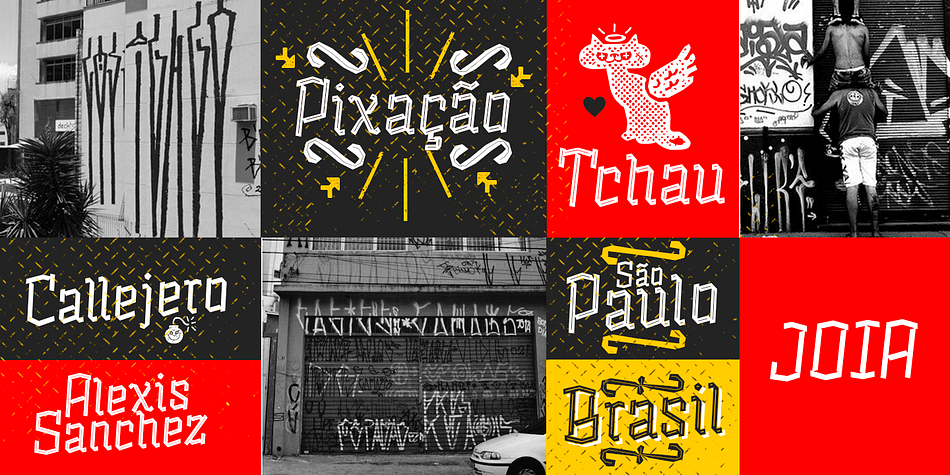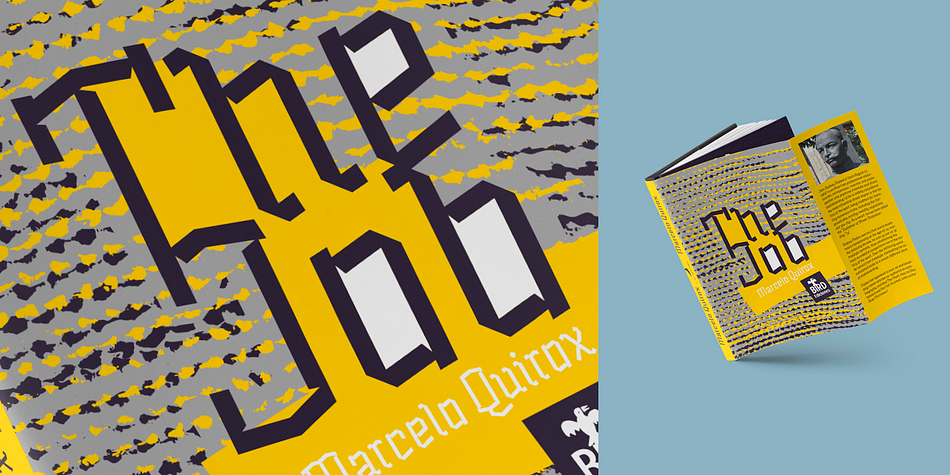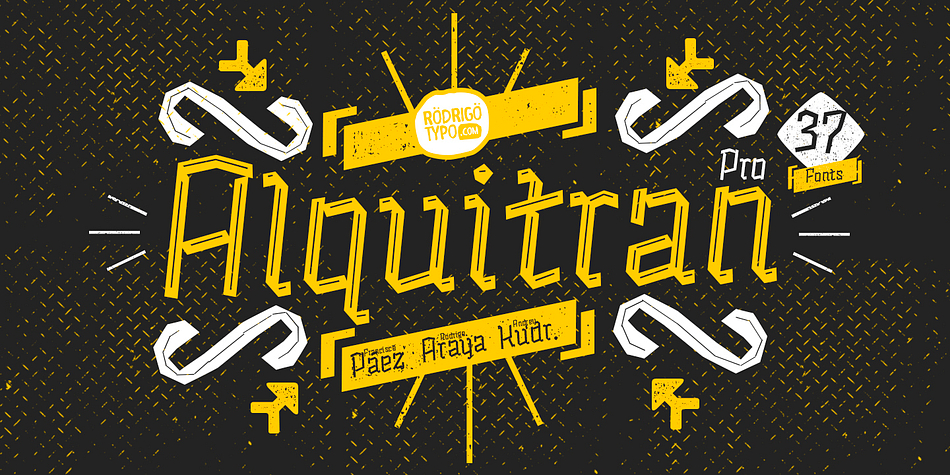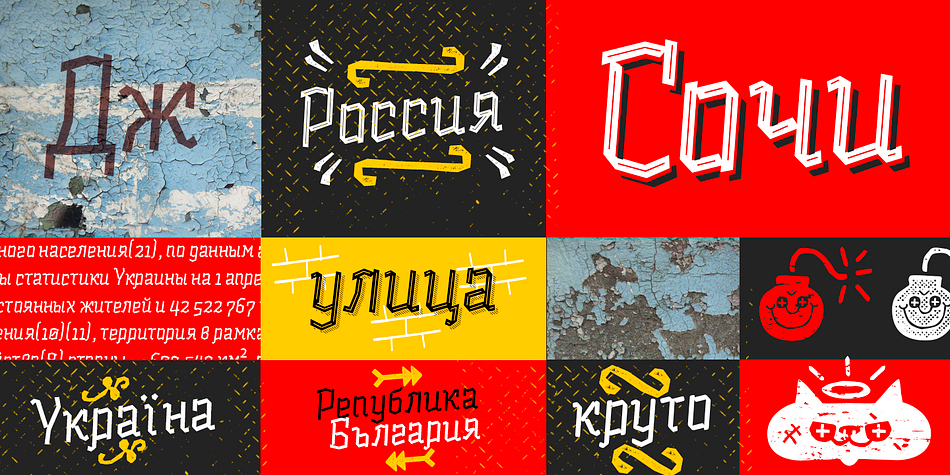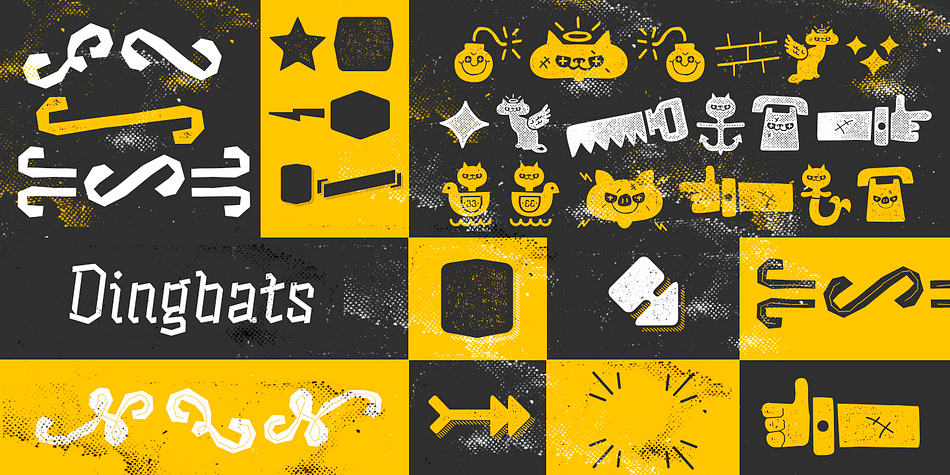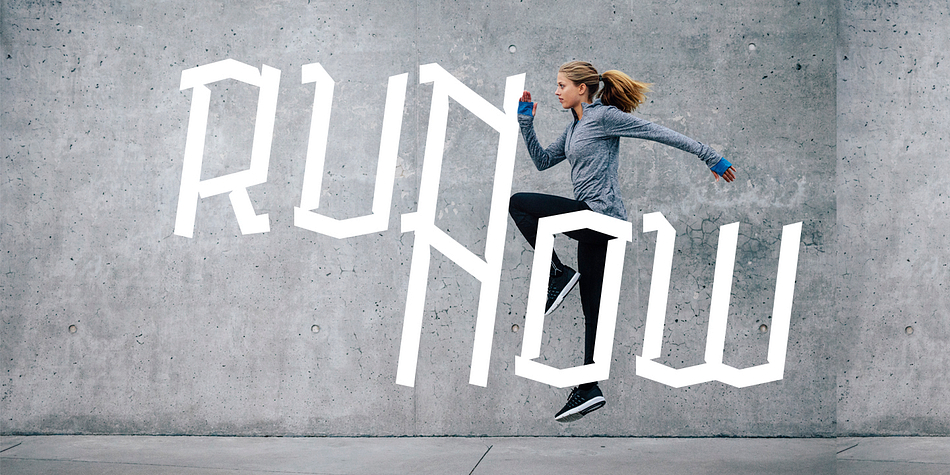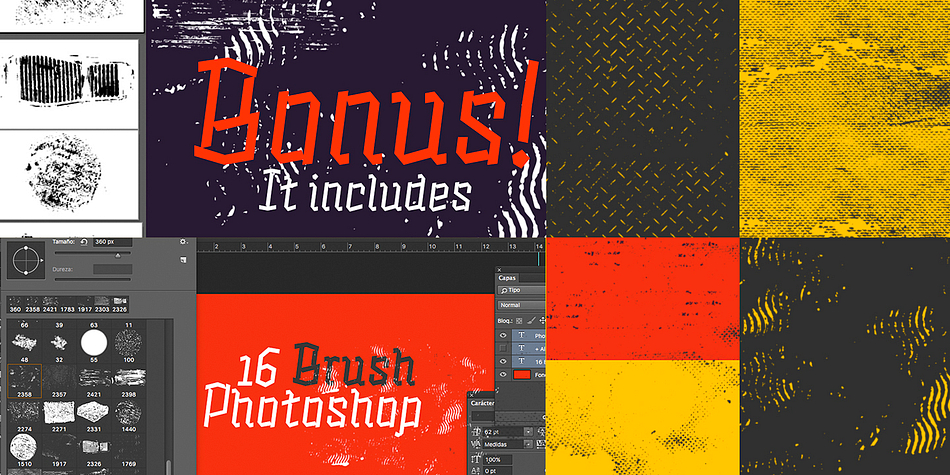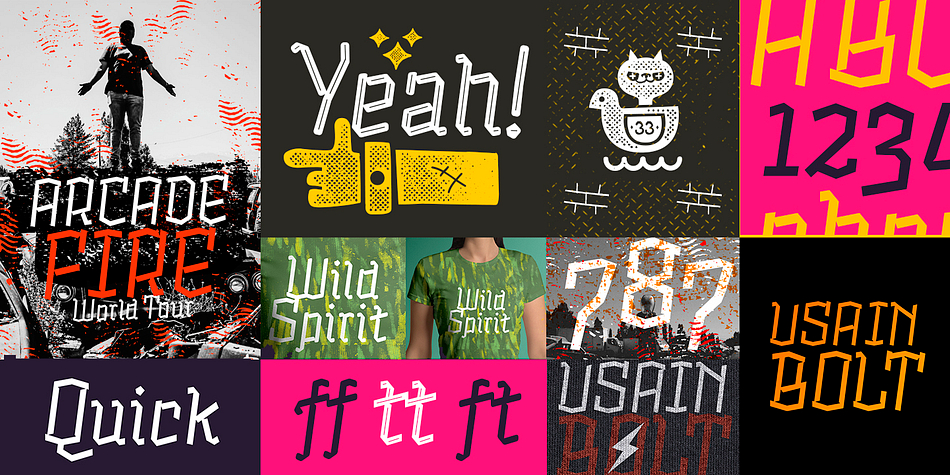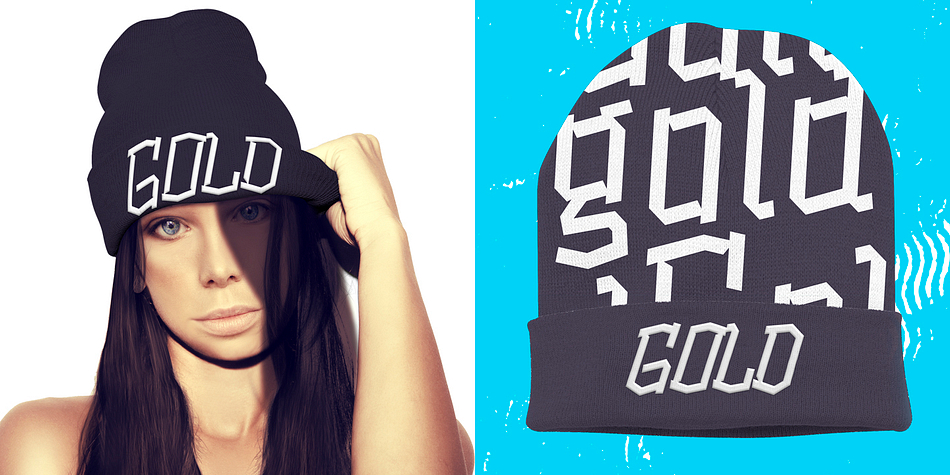
Designed by Andrey Kudryavtsev, Francisco Páez and Rodrigo Salas, Alquitran Pro is a display sans and dingbat font family. This typeface has thirty-seven styles and was published by Rodrigo Typo.
The pixaçao or pichaçao is a form of graffiti born as such in sao paulo in the 1980s although in the 60s there were already vindicative graffiti against the military dictatorship,with the context of a union struggle and uses a unique type of typography in the world, now it is taken and it was designed in a slightly more formal way besides adding different styles like alphabet Cyrillic, this typeface includes a set of brush for photoshop and textures in ilustrator.